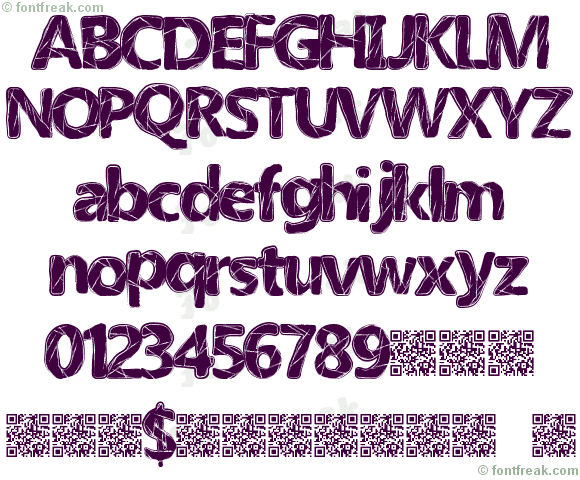
BoltLight
BoltLight by Xerographer Fonts is a captivating display font that stands out with its unique blend of playful and bold characteristics. Designed in 2013, this font showcases a distinctive style that combines rounded edges with a slightly irregular stroke weight, giving it a lively and dynamic appearance. The contrast in the letterforms creates an engaging visual rhythm, while the generous spacing enhances legibility, making it suitable for various design applications.
The versatility of the BoltLight font makes it an excellent choice for several specific use cases. It works wonderfully for creating eye-catching movie posters, where its bold presence can draw attention and convey excitement. Additionally, it is perfect for branding small businesses, especially in sectors like food and entertainment, where a fun and approachable aesthetic is desired. Wedding invitations can also benefit from its charming look, adding a touch of whimsy to the occasion. Furthermore, restaurant menus utilizing BoltLight can create an inviting atmosphere that encourages customers to explore the offerings.
What truly sets the BoltLight font apart is its ability to blend personality with functionality. Its distinctive style not only captures attention but also communicates a sense of creativity and fun, making it an ideal choice for anyone looking to make a lasting impression. For those interested in elevating their designs, the BoltLight font free download is a must-have asset in any designer's toolkit.